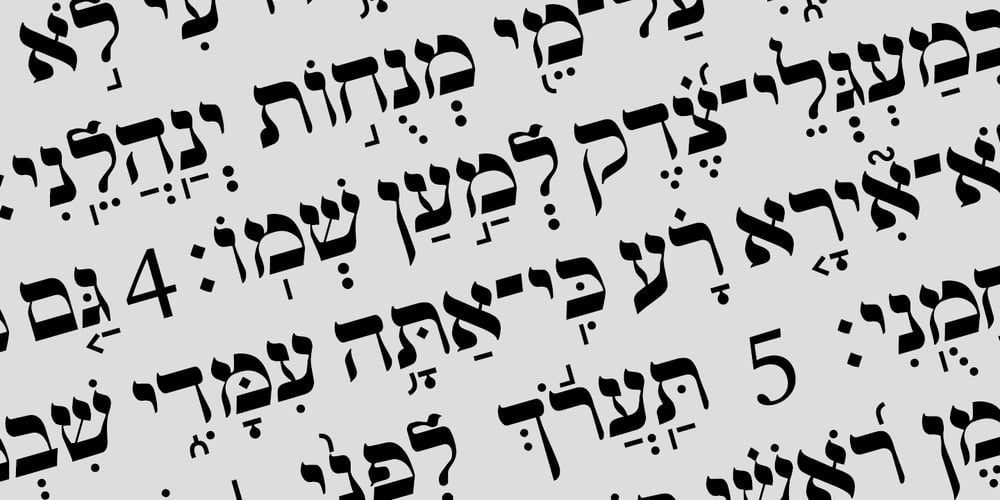
Hebrew Vilna Std
Hebrew Vilna Std font
Hebrew Vilna Std Font Family was designed by Sami Artur Mandelbaum and published by Samtype. Hebrew Vilna Std contains 3 styles and family package options. This is a classic font.You can use to any kind of book or text.